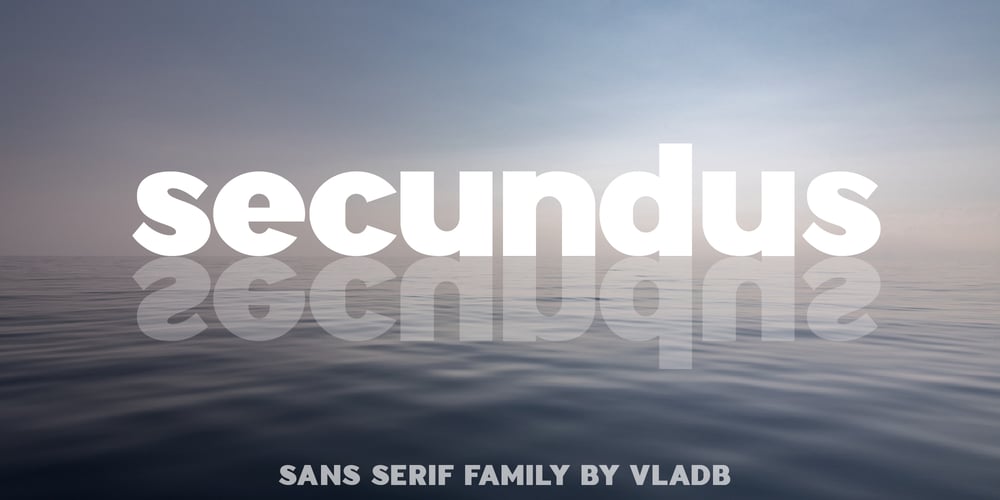
Secundus Font Family was designed by Volodymyr Berla and published by VladB. Secundus contains 4 styles and family package options. Secundus is a bold modern sans serif font, includes upper and lower case characters, Latin, Cyrillic, Latin Eastern Europe, Turkish, Baltic and other.The Secundus family consists of 4 fonts different thickness.Secundus fonts will be useful in developing a brand, creating posters and other graphic products, and for word processing.